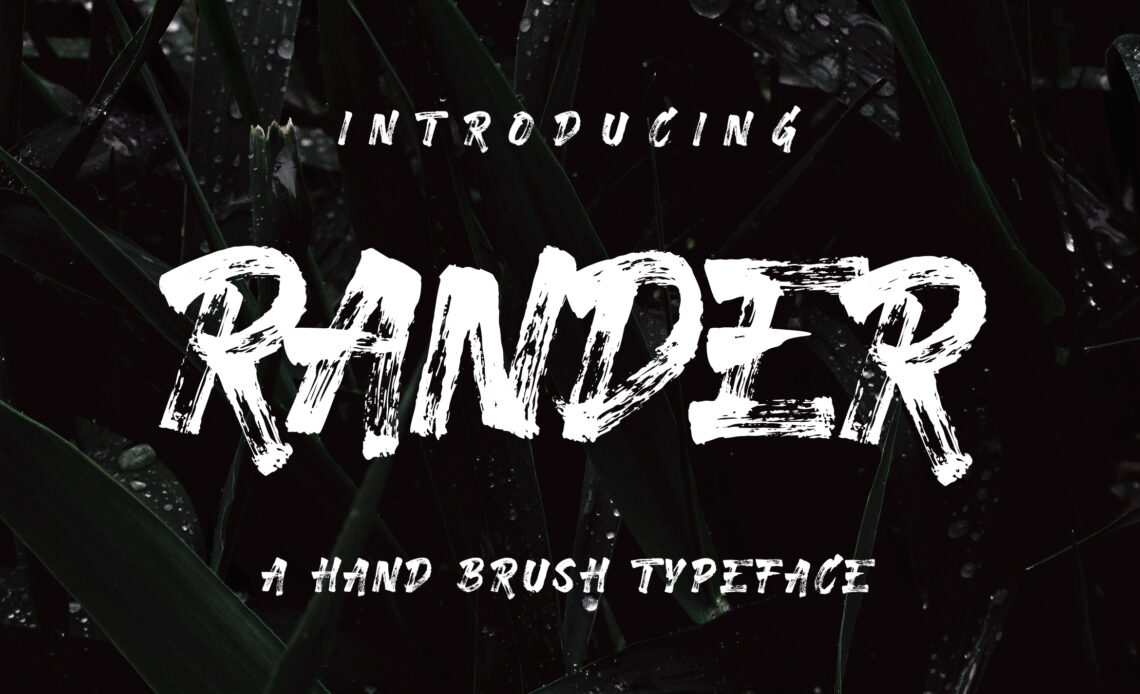
Introducing the Rander Font, a captivating script font family that exudes an air of elegance and sophistication. Created by Visuelcolonie, this freehand rough brush font embodies the charm of handwritten strokes, adding a touch of individuality to your designs.
With its dynamic and flowing characters, the Rander Font lends itself beautifully to a wide range of applications. Its youthful and modern appeal brings a sense of playfulness and vibrancy to any project, while its subtly textured edges add depth and dimension. Whether you're designing logos, invitations, posters, branding materials, or packaging, the Rander Font promises to leave a lasting impression.
Imagine your designs adorned with the Rander Font, conveying messages with a touch of artistic flair. Unleash your creativity and let the Rander Font elevate your projects to new heights. Its versatility knows no bounds, effortlessly adapting to various styles and genres.
Experience the allure of the Rander Font and immerse yourself in its enchanting world of typography. Its freehand nature allows for endless possibilities, encouraging you to explore unconventional layouts and compositions. Let the Rander Font dance across your designs, captivating your audience with its unique charm.